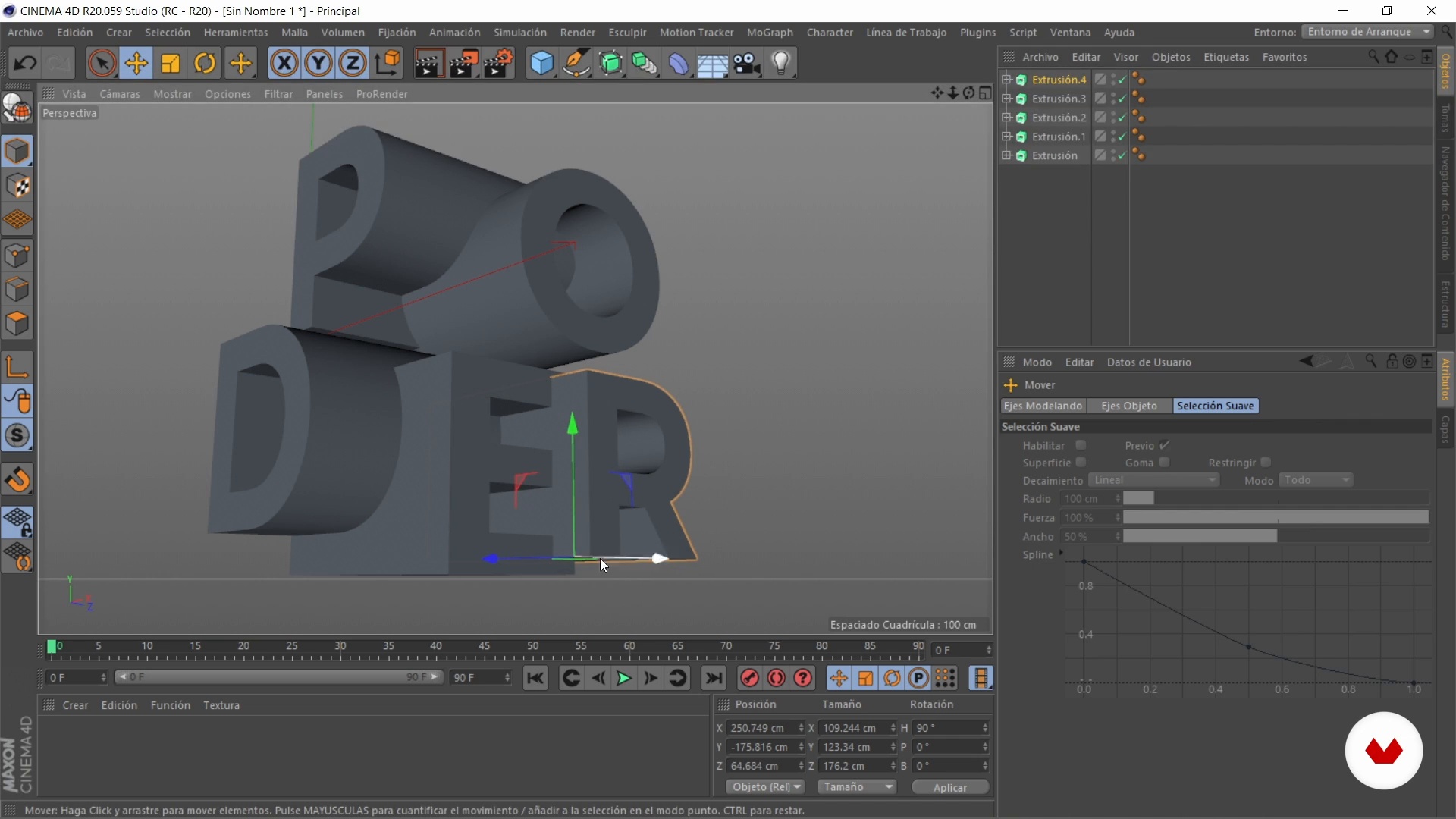
3D Font Design with a Metallic Finish
Typography modeling
A course by Dawlym Murillo Jaramillo , Graphic Designer Specializing in Lettering
About the video: Typography modeling
“Now you'll see how I work on the third project. I'll show you how to extrude a word and apply a rusty material.”
In this video lesson Dawlym Murillo Jaramillo addresses the topic: Typography modeling, which is part of the Domestika online course: 3D Font Design with a Metallic Finish. Learn three-dimensional modeling techniques in Cinema 4D to add a realistic and vibrant touch to your lettering.
“In this lesson, we will work on typographic instruction. Remember that you can model the typography and accommodate it as you like. To extrude a text in Cinema 4D is super easy. Extrude means to convert a text into 3D and it is very easy. We have two ways to do it and they are very similar. For example, we have the MoGraph, which is called MoText, which is already in 3D. What I do is write here in the attributes the word, in this case, power, which was the word I chose. just now, that's all. It's already in 3D, it's super easy. This can change the depth, I can add your divisions, I can chan...”